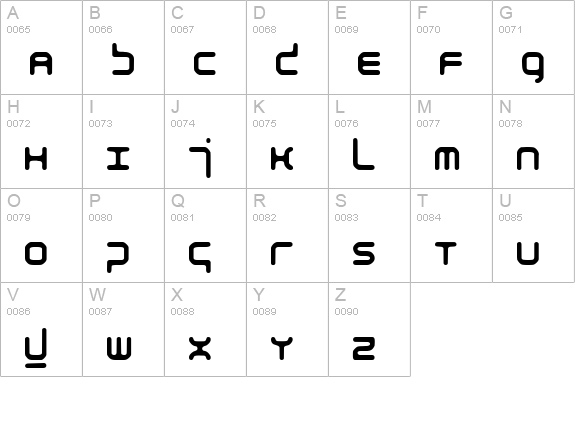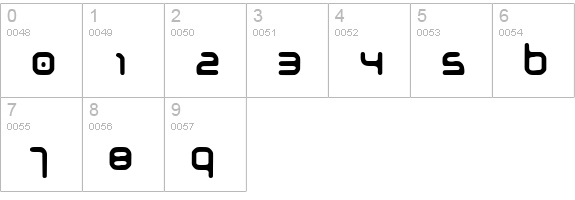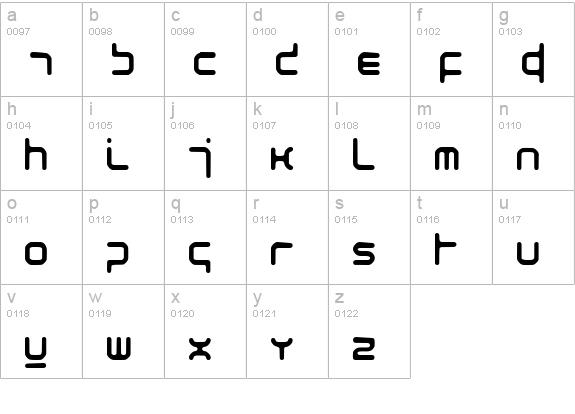
Atmosphere Round Font Details
Atmosphere Round font is a modern and sleek typeface that exudes a sense of creativity and sophistication. Its rounded edges and clean lines make it perfect for a wide range of design projects, from branding to editorial design. The font carries a unique charm that sets it apart from other typefaces, making it a popular choice for designers looking to add a touch of elegance to their work. What's even better is that Atmosphere Round font is completely free to download at FontsMarket.com. Whether you're a seasoned designer or just starting out, this font is a valuable addition to your collection. Don't miss out on the opportunity to elevate your designs with this stylish and versatile typeface. Download Atmosphere Round font today and unleash your creativity!